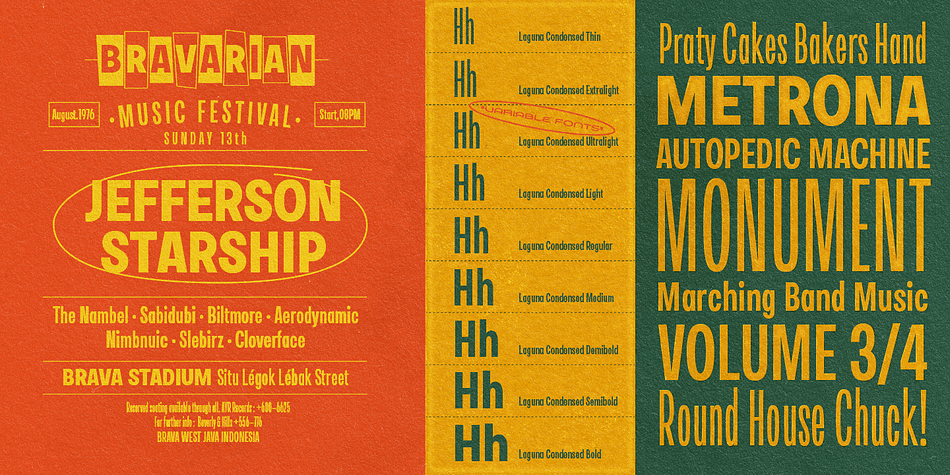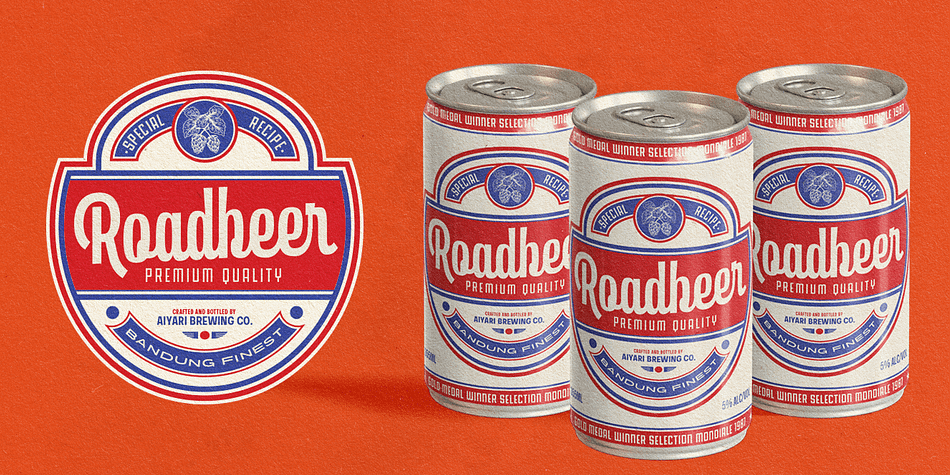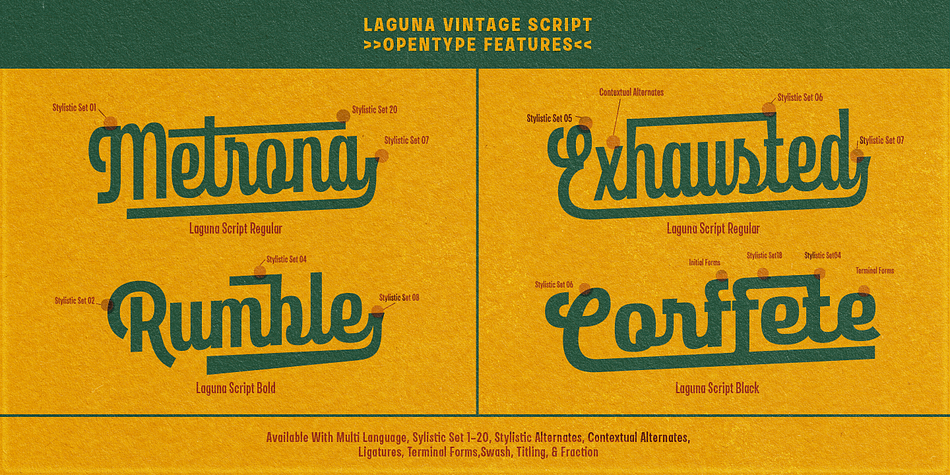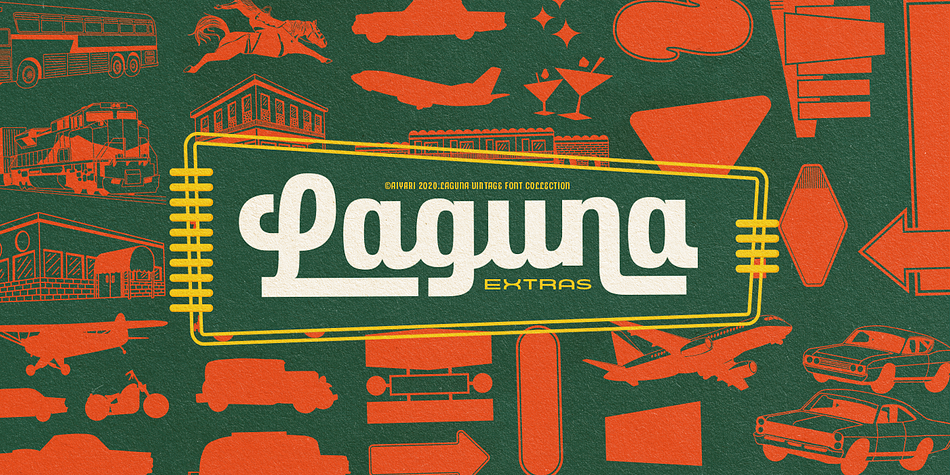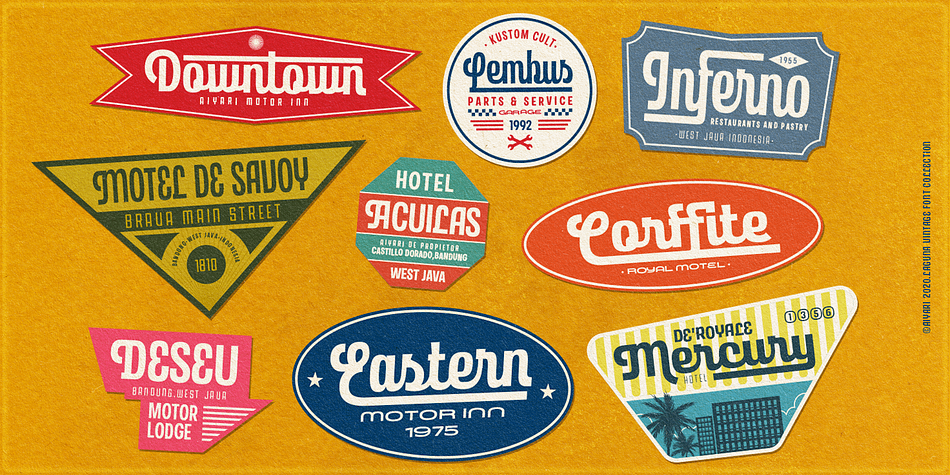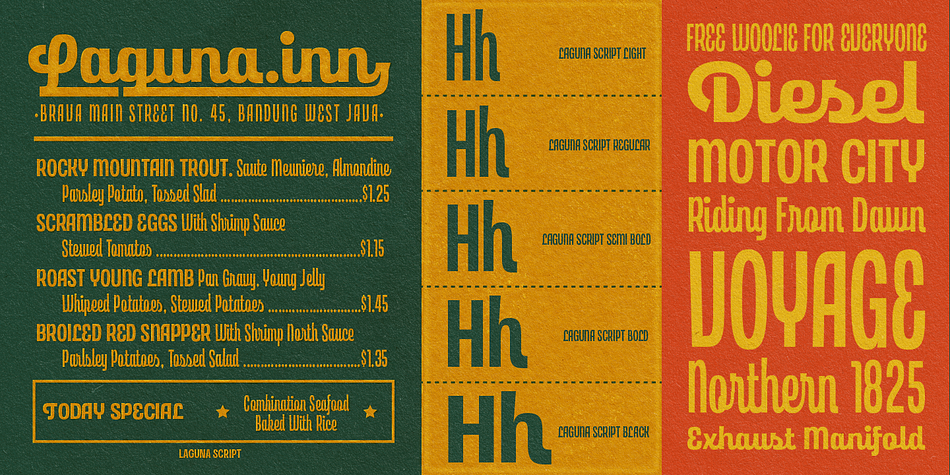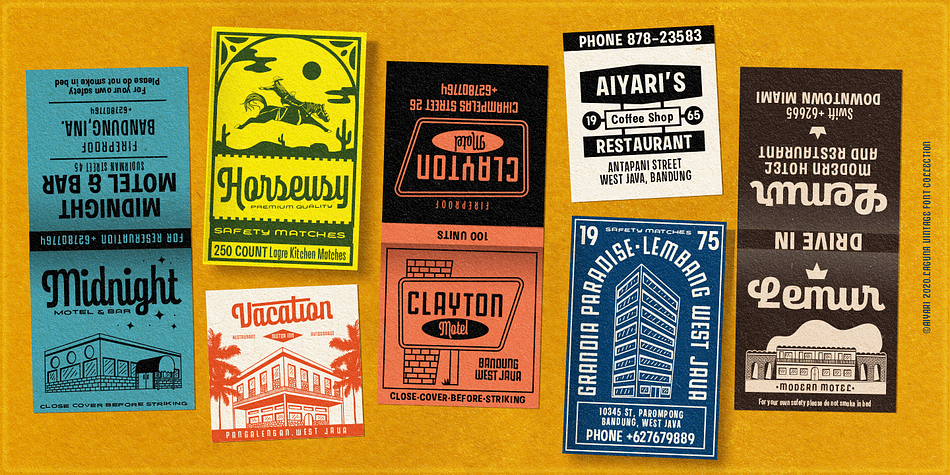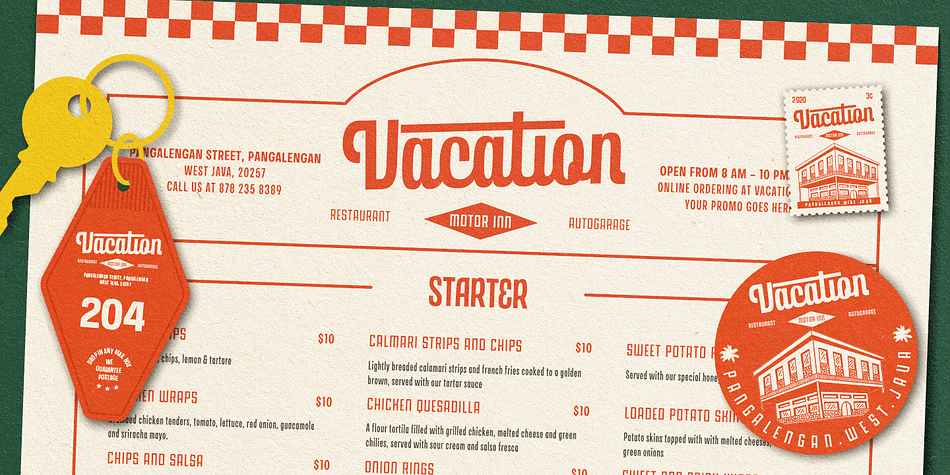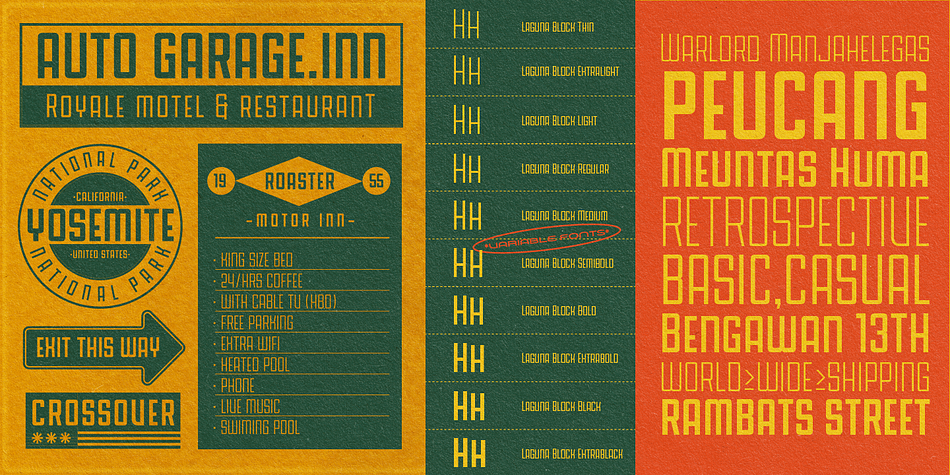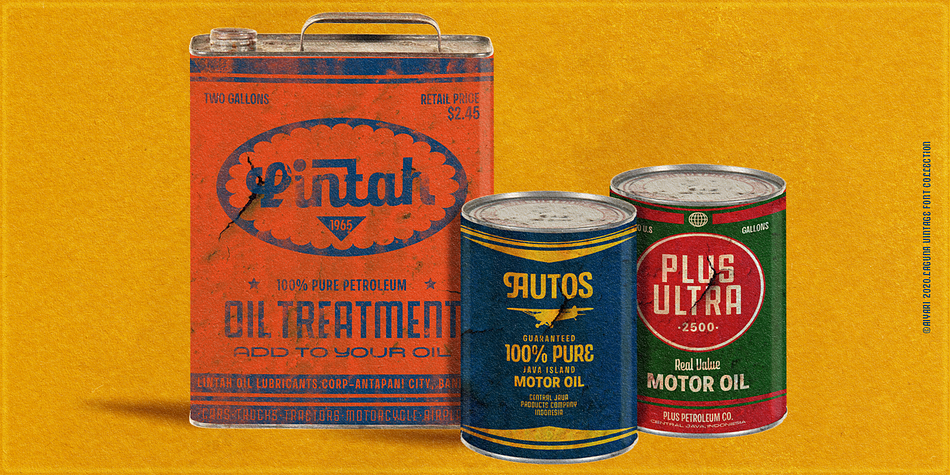
Designed by Ricky Rinaldi, Laguna Vintage is a multiple classification font family. This typeface has twenty-nine styles and was published by Aiyari.
Introducing Laguna Vintage Font Collection. Inspired from American motor inn signs and vintage restaurant signs in 50s-70s. Laguna comes with open type features such stylistic alternates, stylistic sets, contextual alternates & ligatures. Also available in variable font format. To perfecting your design Laguna Font Collection also available with graphic extras :)
Laguna Font Collection is best uses for headings, Logo type, quotes, apparel design, invitations, flyer, poster, greeting cards, product packaging, book cover, printed quotes, cover album, movie, etc
Styles | Display Sans, Retro, Sans Serif, Script, Dingbat |